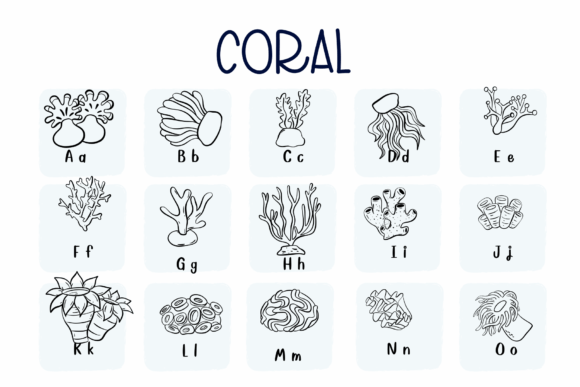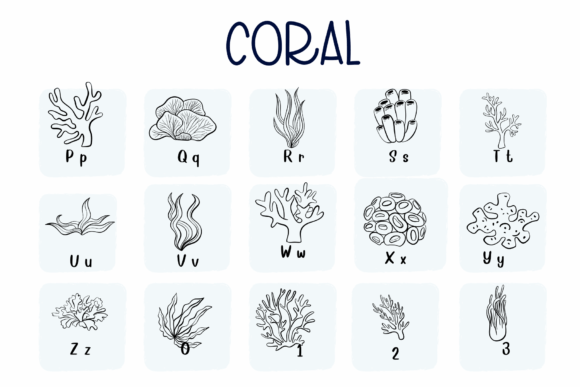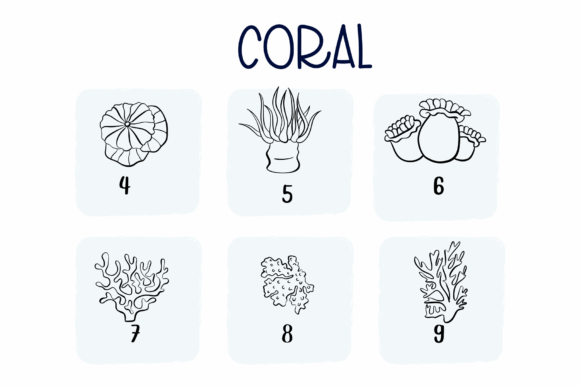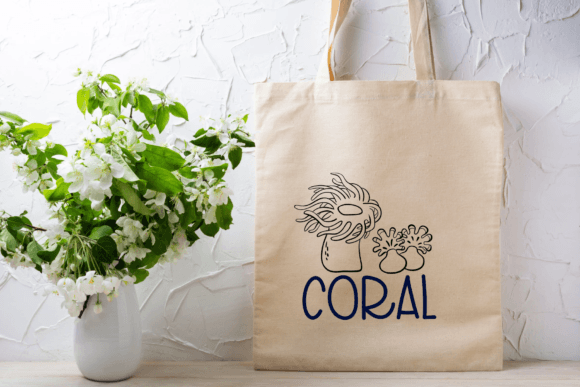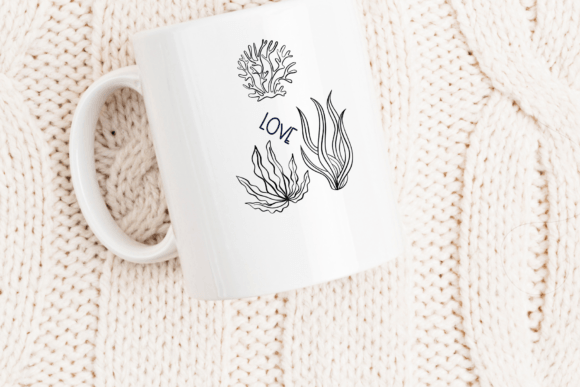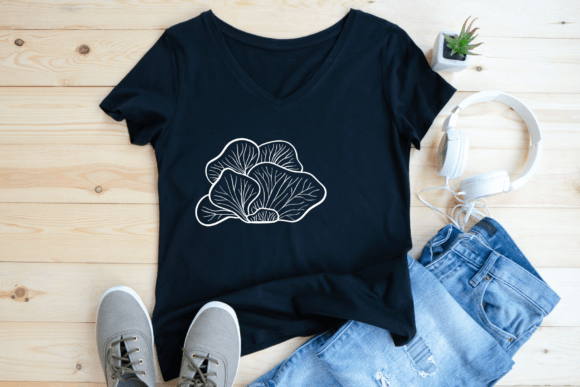
Introduction to Coral Font
Coral is a dingbats font with an aquatic style.
This font can enhance your creative projects such as wedding invitations, DIY, crafts, decorations, logos, and many other creative ideas .
Key Features of Coral Font
Why Choose Coral Font?
Coral Font offers exceptional quality and versatility, making it a valuable addition to your design toolkit. Whether you’re creating for personal projects or commercial use, Coral Font delivers professional results.